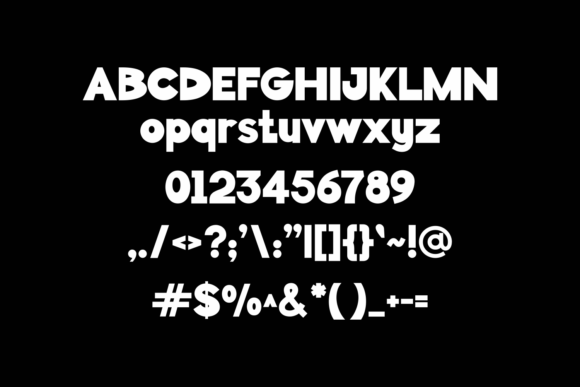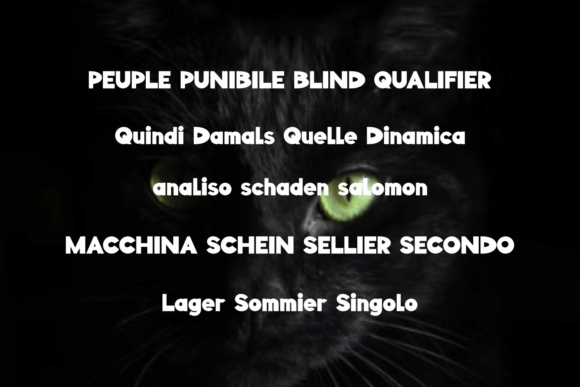
Introduction to Obicod Font
Do you remember that moment when you finally nailed the design for your project, and everything just clicked? You spent hours tweaking colors, shapes, and typography, and the result was nothing short of breathtaking. But what if I told you that there’s a secret ingredient that can take your designs to the next level? Enter the Obicod Font, a cool and unique display font that’s about to become your new best friend.
As a designer, you’re always on the lookout for the perfect design resource to elevate your creative project. And that’s exactly what the Obicod Font offers – a high-quality, versatile font that can be used in a variety of contexts, from elegant headings to playful quotes. With its transparent background and sleek design, this font is a must-have for any serious designer looking to add some sophistication to their work.
Key Features of Obicod Font
- Obicod Font is a high-quality design resource suitable for various creative projects, offering a unique and stylish aesthetic.
- The Obicod Font is available in a single weight, making it ideal for projects that require a consistent look and feel.
- This font is designed to be highly legible, with clear and crisp letterforms that make it perfect for body text and titles.
- The Obicod Font is a great addition to any designer’s toolkit, offering a unique and stylish element to enhance their creative projects.
Honest Review: Obicod Font
As a designer, I’m always on the lookout for high-quality fonts to enhance my creative projects. Recently, I stumbled upon the Obicod Font, and I must say, it’s been a great addition to my design resource collection.
One of the things that stood out to me about the Obicod Font is its clean and modern aesthetic. The font is perfect for creating a professional and sleek look in any design project. I’ve used it for a variety of projects, from logos to brochures, and it always adds a touch of sophistication.
Here are some of the things that work well about the Obicod Font:
- ✨ Clean and modern aesthetic that’s easy to work with
- ✨ Transparent background, making it easy to layer with other design elements
- ⚠️ Limited font sizes and styles, which can be a drawback for more complex projects
- ⚠️ Not ideal for projects that require a lot of customization or unique typography
Overall, I’m really impressed with the Obicod Font. It’s a great addition to any designer’s toolkit, and it’s perfect for anyone looking for a high-quality, free font to enhance their creative projects.
Tips for Getting the Most Out of Obicod Font
For the best results, use Obicod Font on a transparent background to give your design a clean and modern look. You can also pair it with other high-quality design resources to create a unique and creative look for your project.
Common Use Cases for Obicod Font
Obicod Font is ideal for use in creative projects such as logos, business cards, and brochures. It’s also a great choice for use in digital design applications such as social media graphics and presentations.